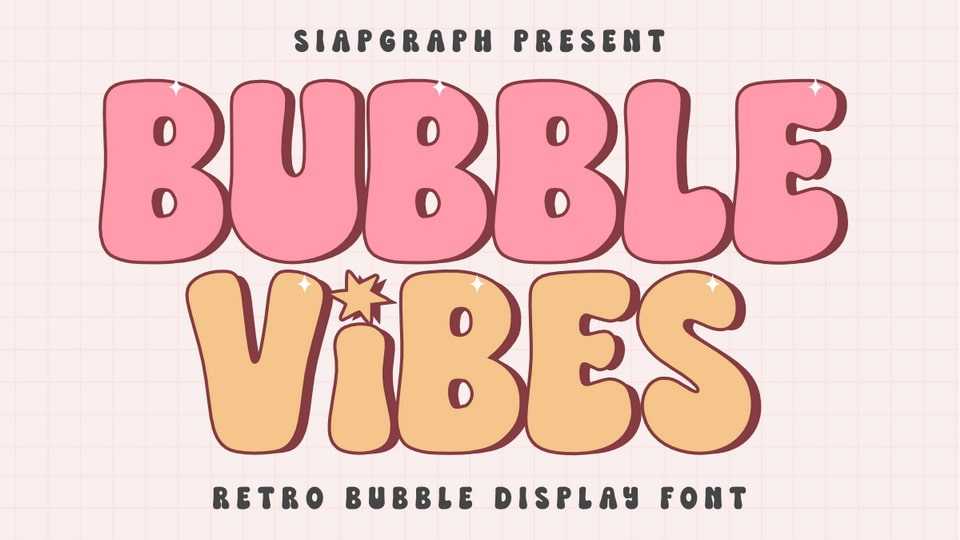
Bubble Vibes Font › Fontesk
Download Bubble Vibes font, a captivating bubble retro display typeface that effortlessly transports your designs back to the vibrant and cheerful era of the 60s and 70s.